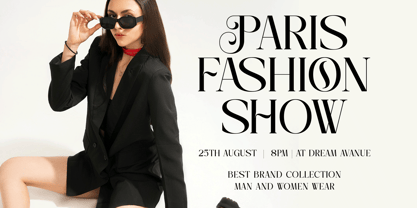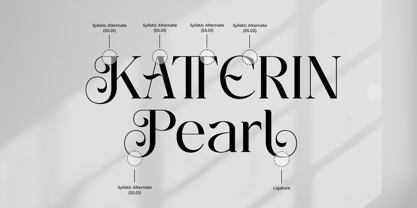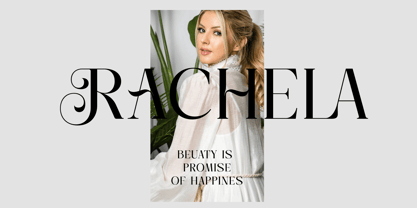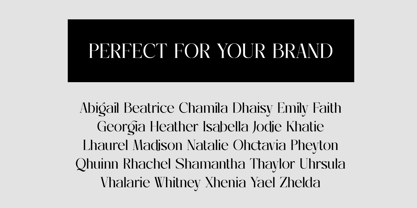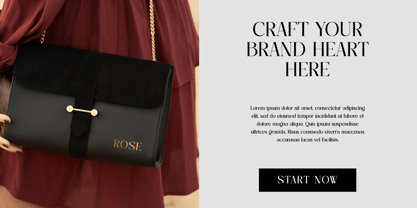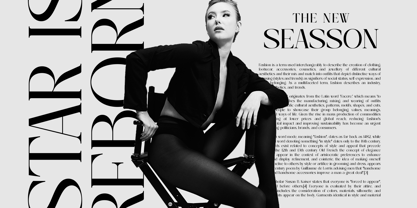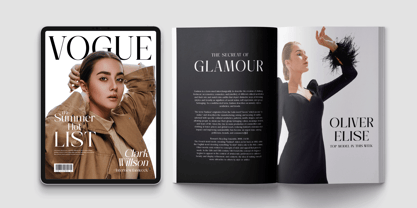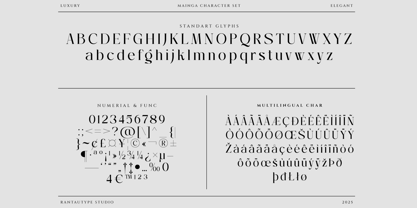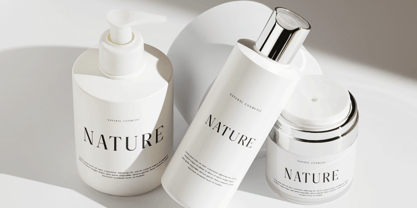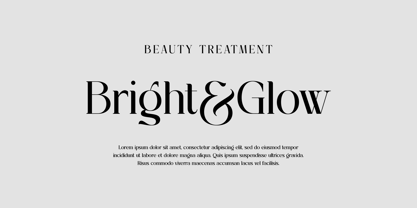
Mainga
by RantauType
The Mainga Font Family was designed by Yudi Pratama Chandra and published by RantauType. Mainga contains 2 styles and family package options. More about this family
Mainga is modern elegant serif font inspire by fashion trend visual design. Mainga is a perfectly choice for any creative endeavor, chic, lifestyle design such as logotype, advertisements, watermark on photography, stationery, branding project, display and magazine, invitation, corporate brand, product design, label, business project and many other project with luxury touch.
• Standart Glyphs
• Numberial and Functional
• Ligature and alternate
Designers: Yudi Pratama Chandra
Current Foundry: RantauType